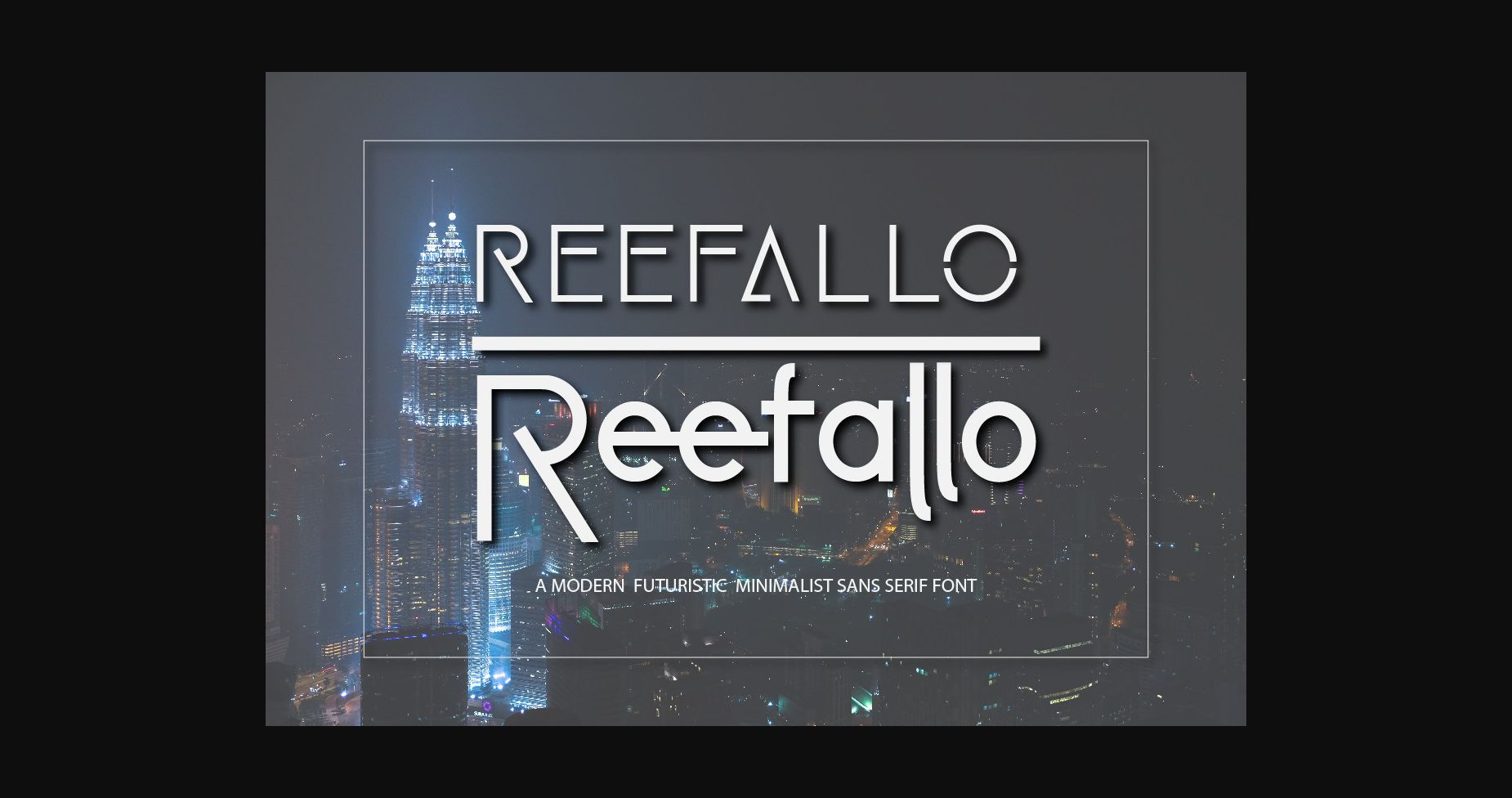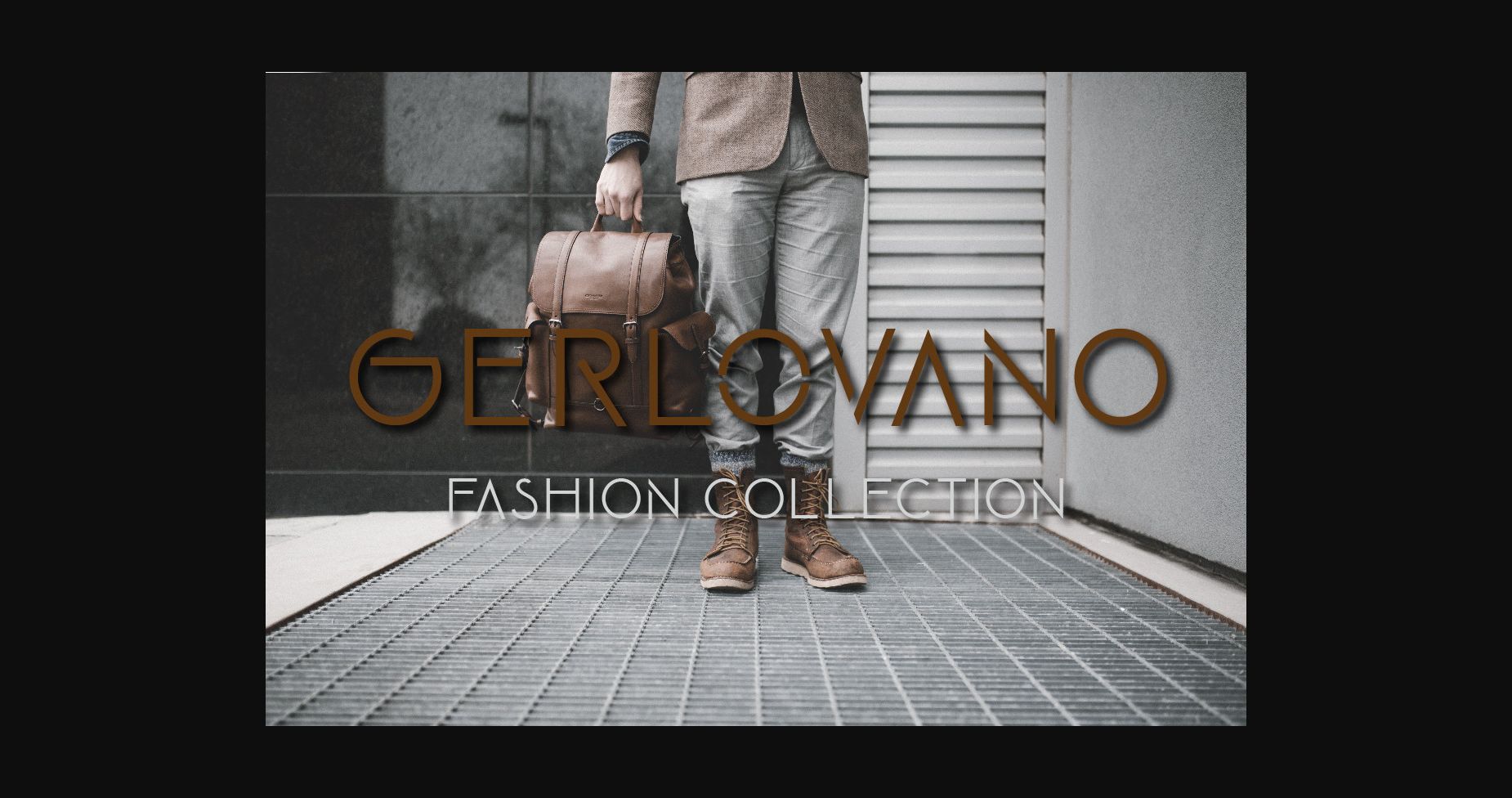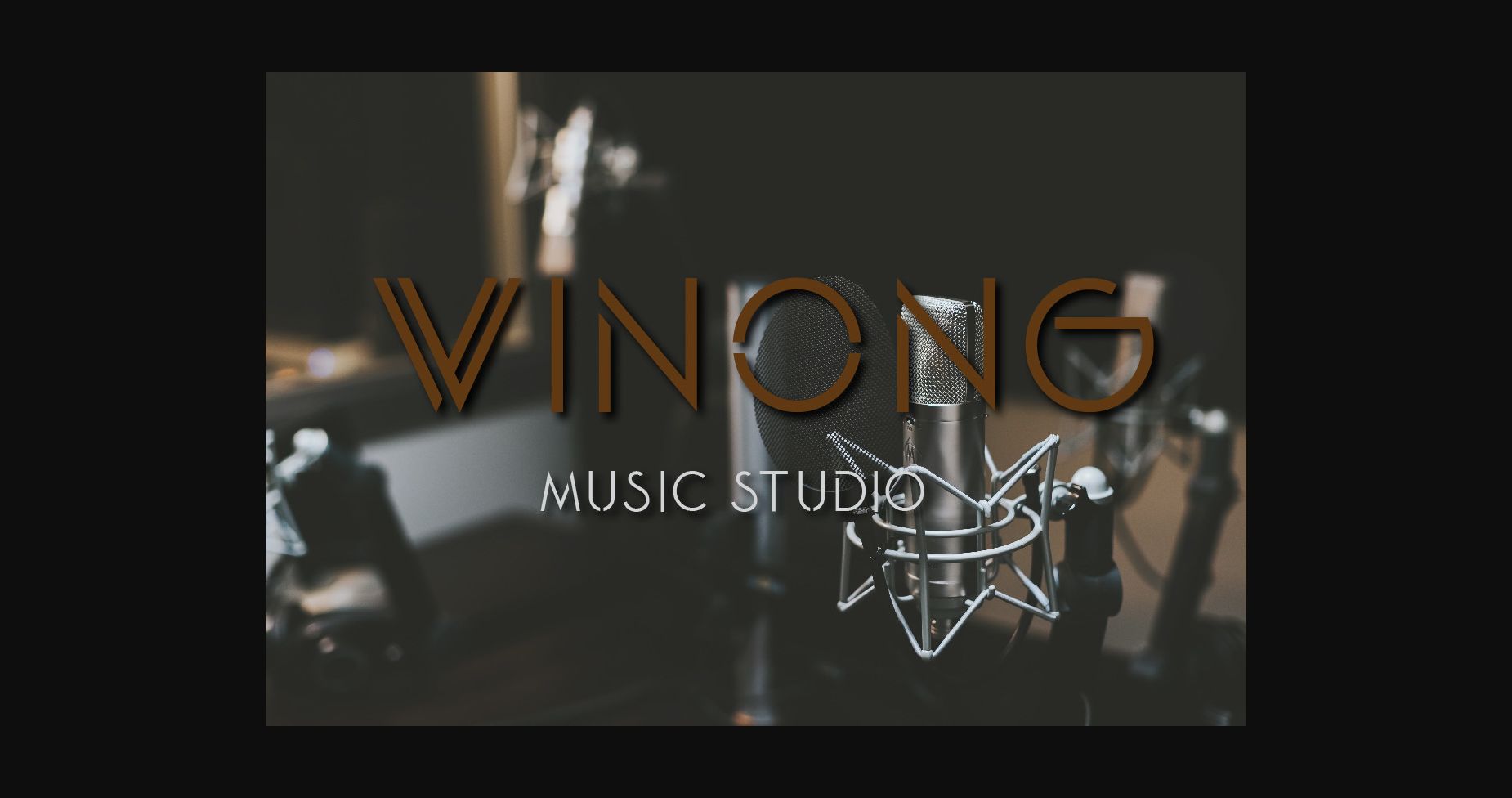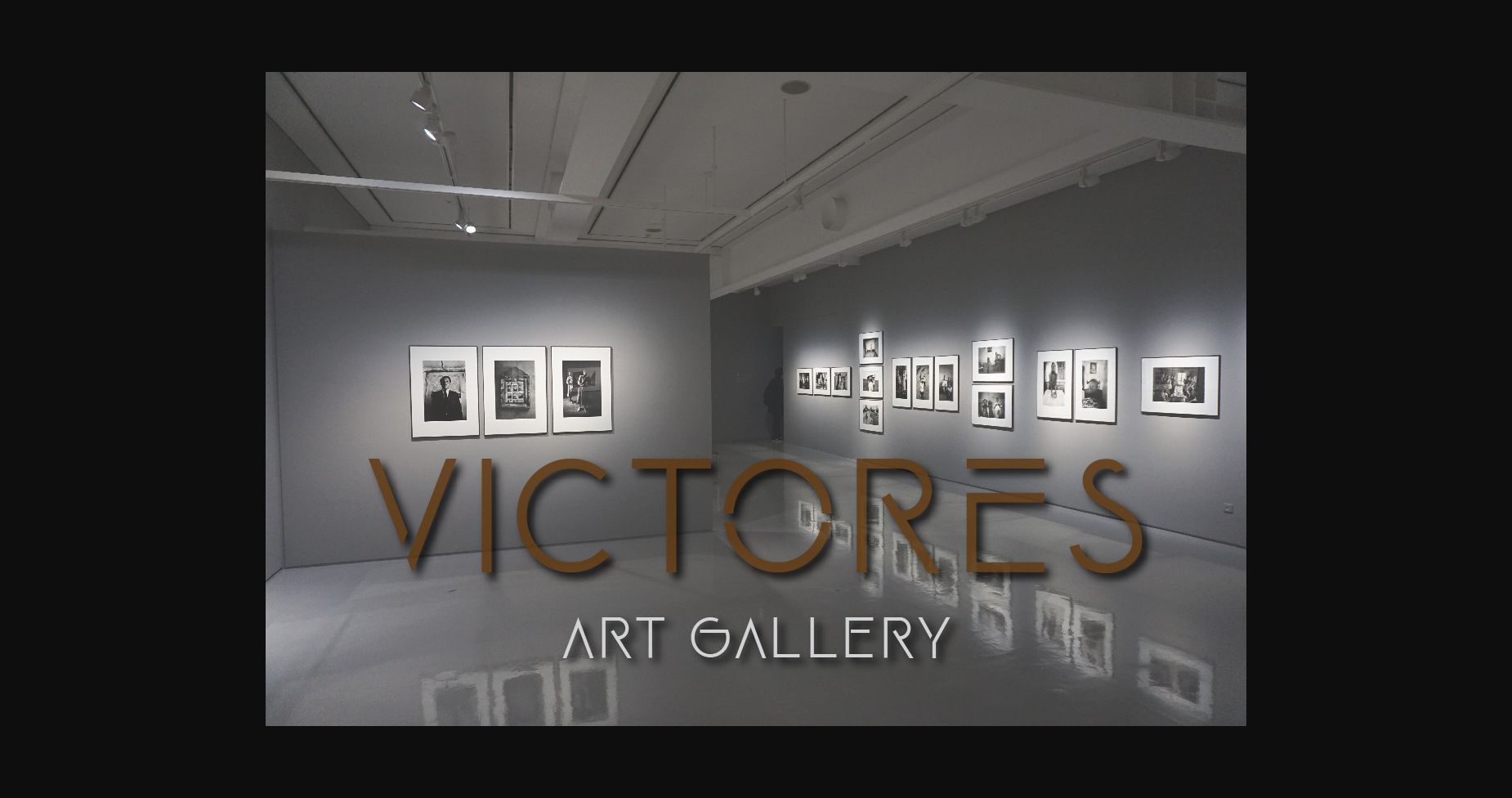
About Reefallo Font
Reefallo is a modern and minimalist sans-serif font. It looks stunning on wedding invitations, thank you cards, quotes, greeting cards, logos, business cards and every other design which needs a customized touch.